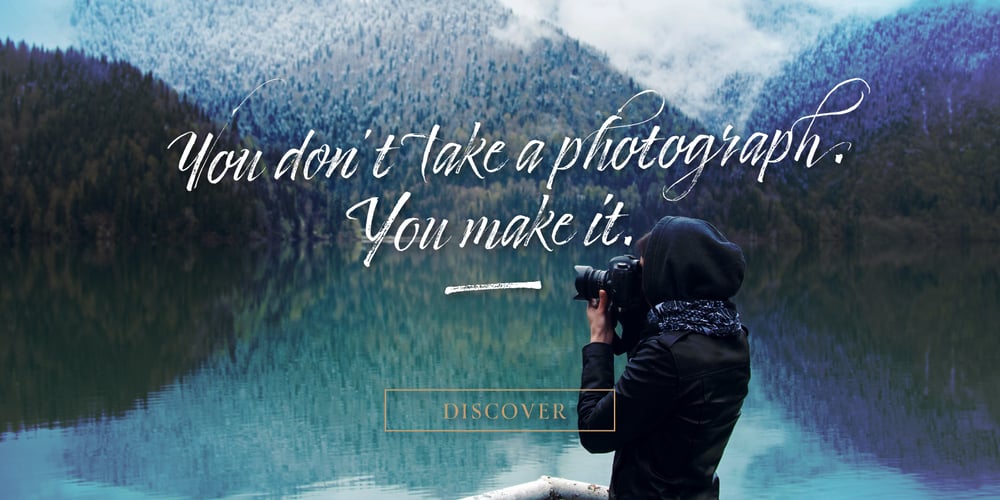
Timberline Font Family was designed by Giuseppe Salerno and published by Resistenza. Timberline contains 2 styles and family package options. Timberline is a new handwritten font full of character with textured lines and graceful strokes. A casual handwritten script to get the perfect look you need for your design. Timberline Icons is the perfect match to this font. A collection of catchwords, ornaments, swashes and doodles to customize your layout. It includes opentype features – stylistic alternates and an extended set of Ligatures to add to the realistic nature of calligraphy. We recommend to combine Timberline with: PestoFresco Turquoise